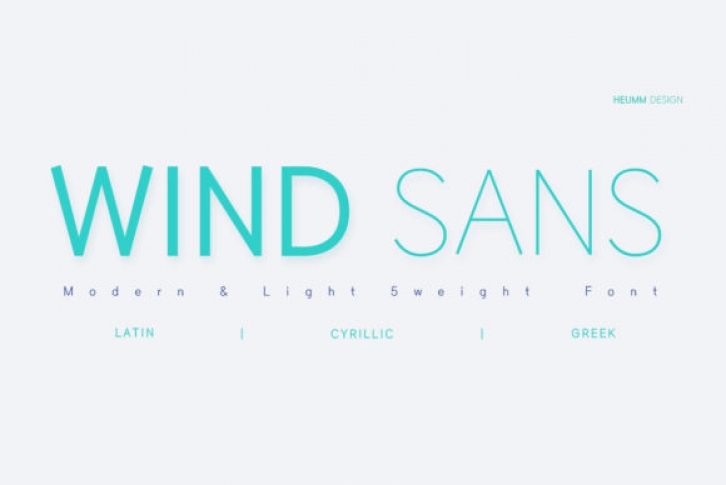
HU Wind is a sans serif typeface with long body of characters and light weight appropriate for text. It has elegant and well balanced characters that are perfect for designs such as: logos, stationery art, quotes, book covers, magazines, branding and much more.